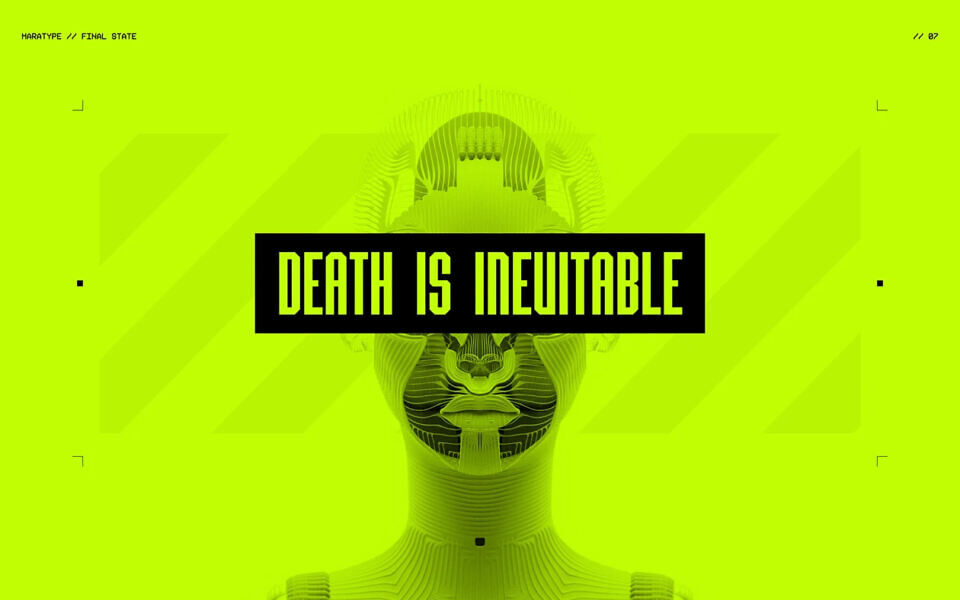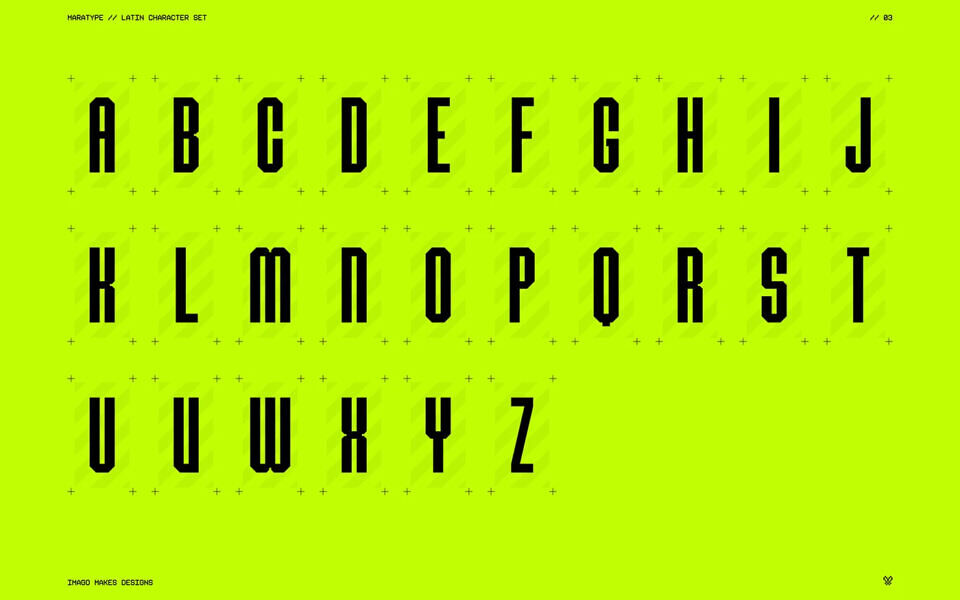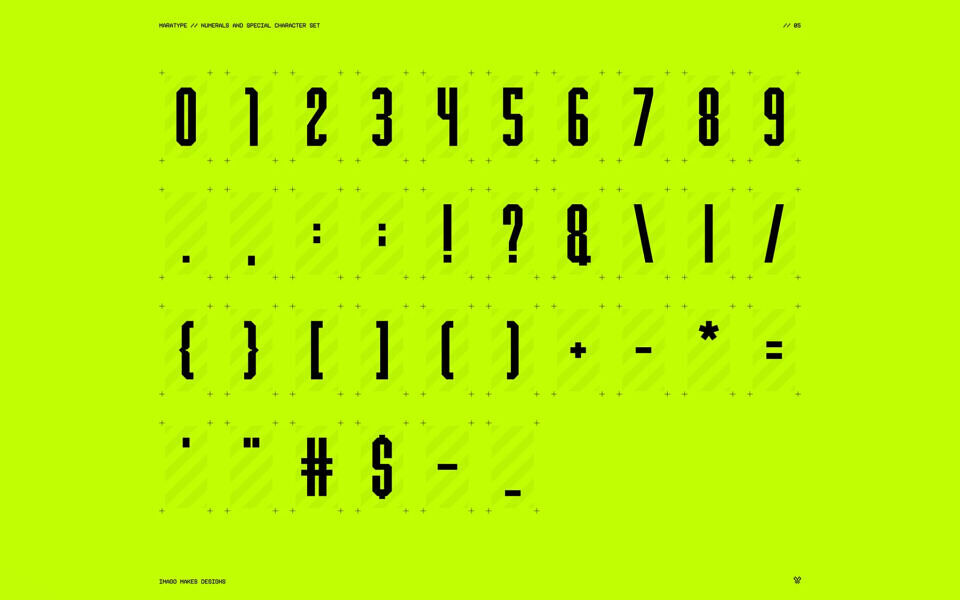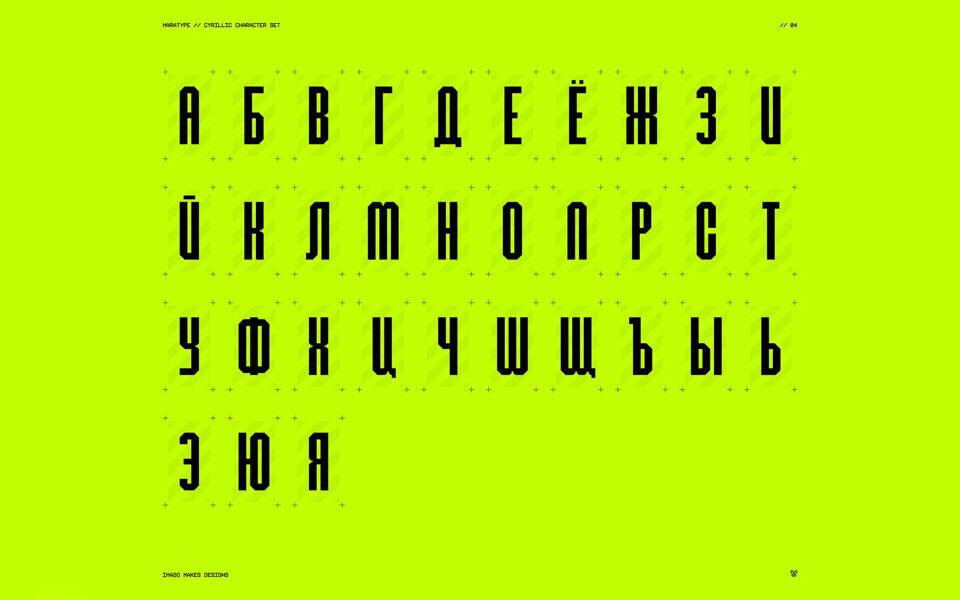
Maratype Font
Maratype is a bold, custom display font inspired by the high-energy world of the Marathon game by Bungie. With its sharp, geometric letterforms and neon-green aesthetic, it captures the game’s futuristic and intense vibe.
Featuring Latin, Cyrillic, and special character sets, this font blends retro gaming nostalgia with modern design flair, making it perfect for dynamic titles, posters, and digital art.
Designed by: Artyom Galinov